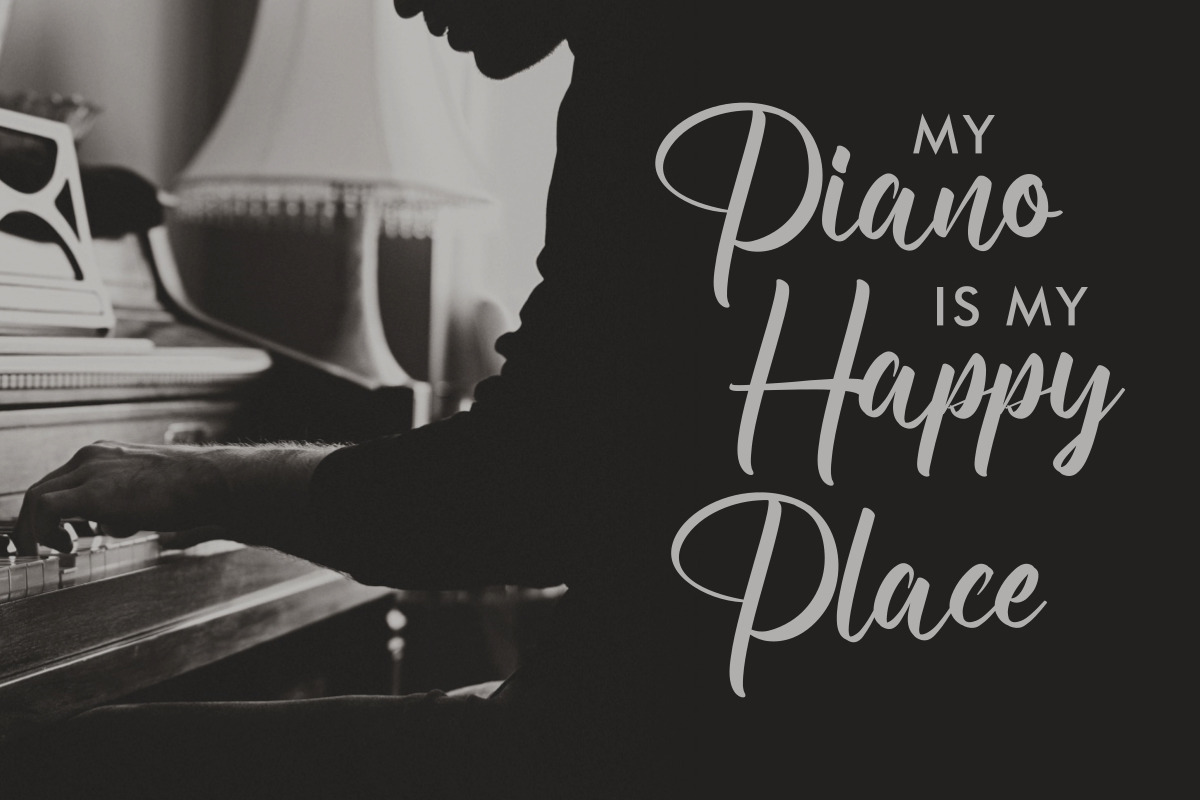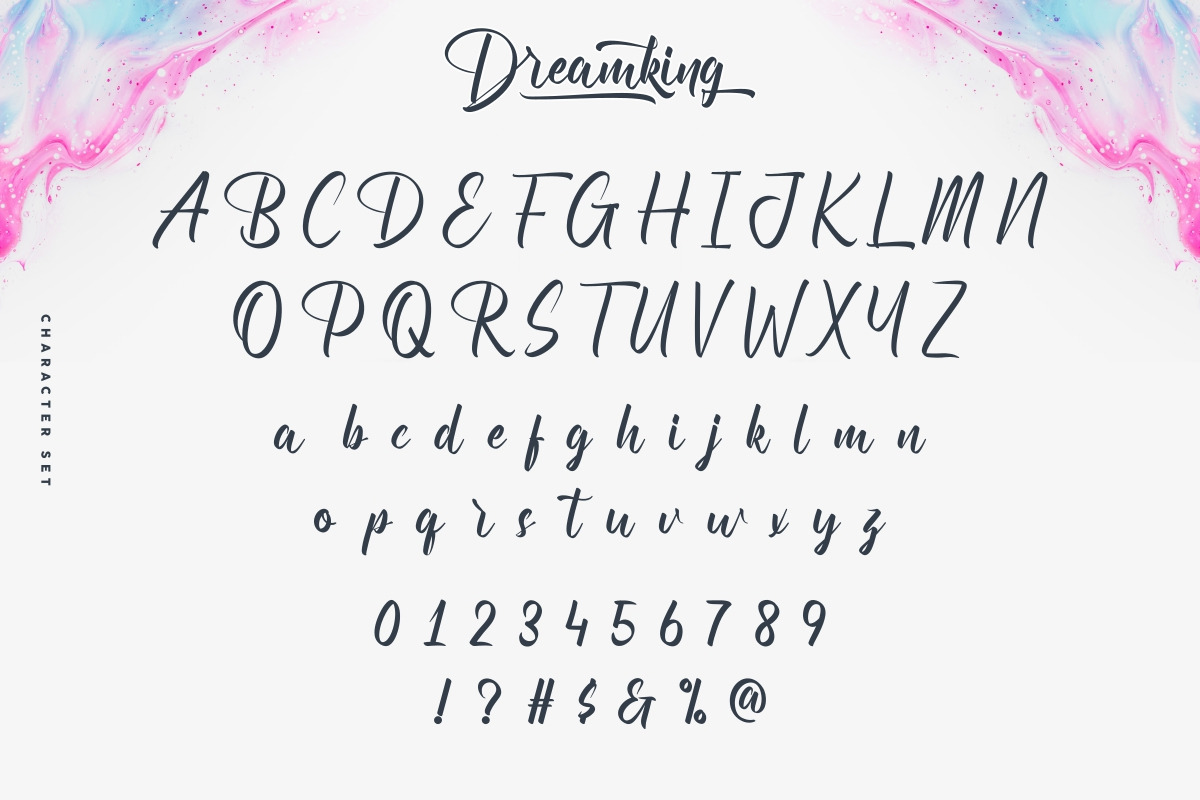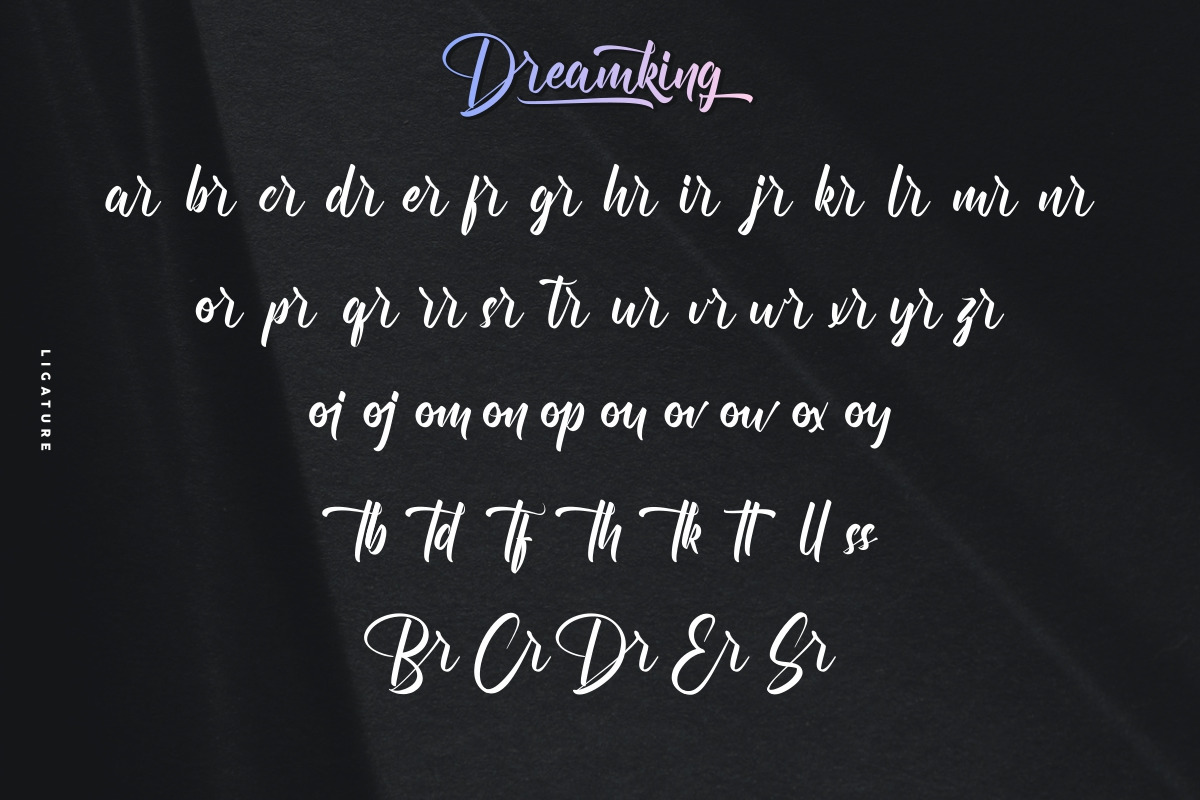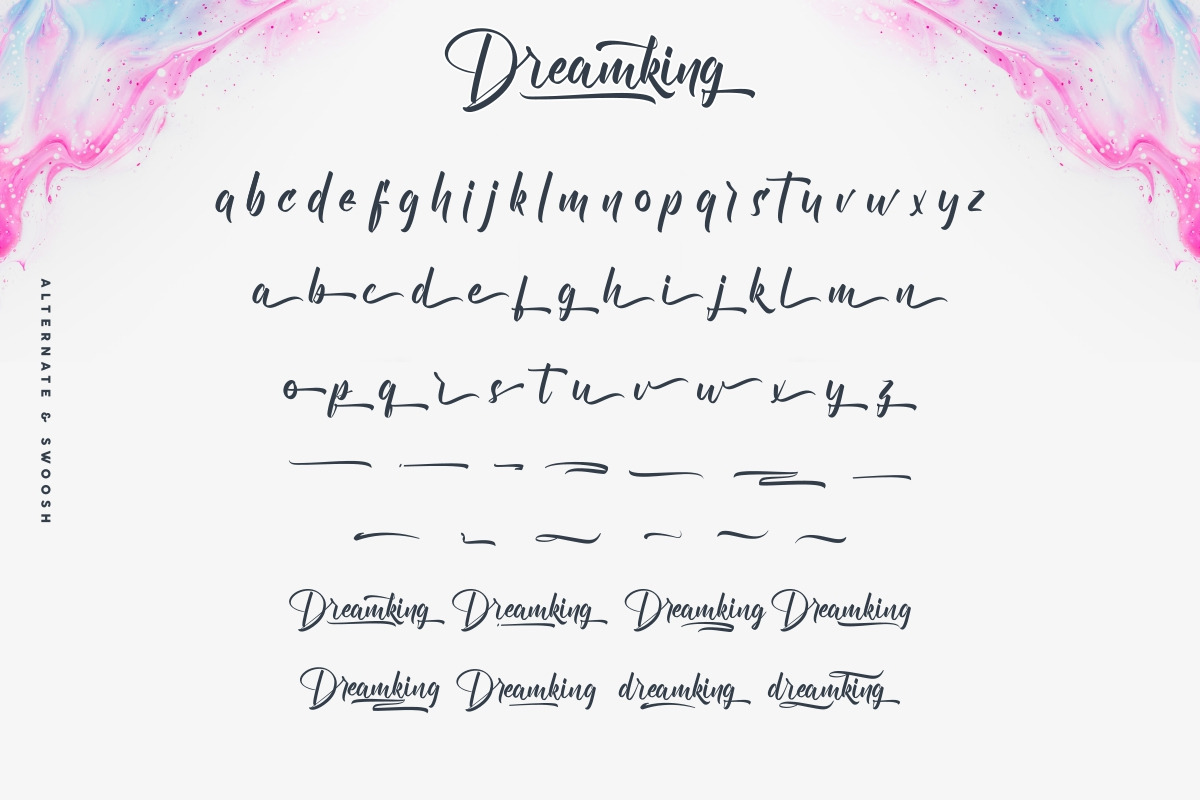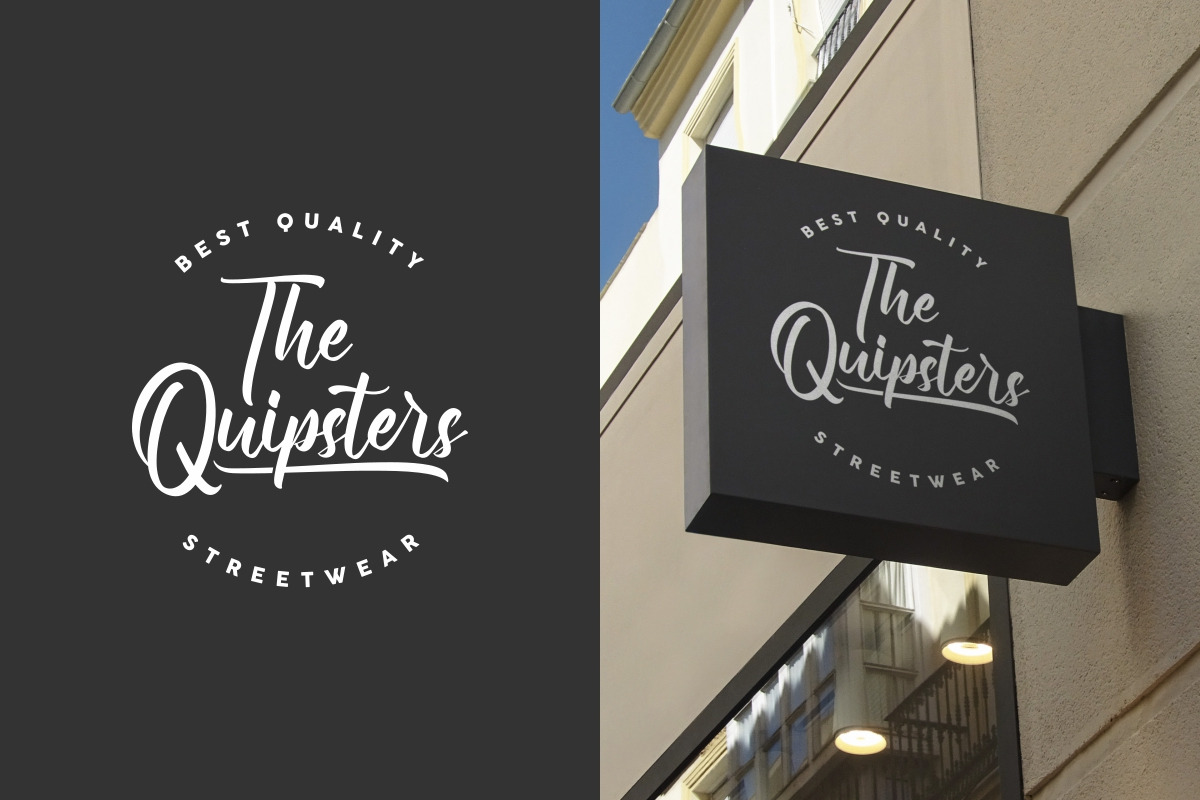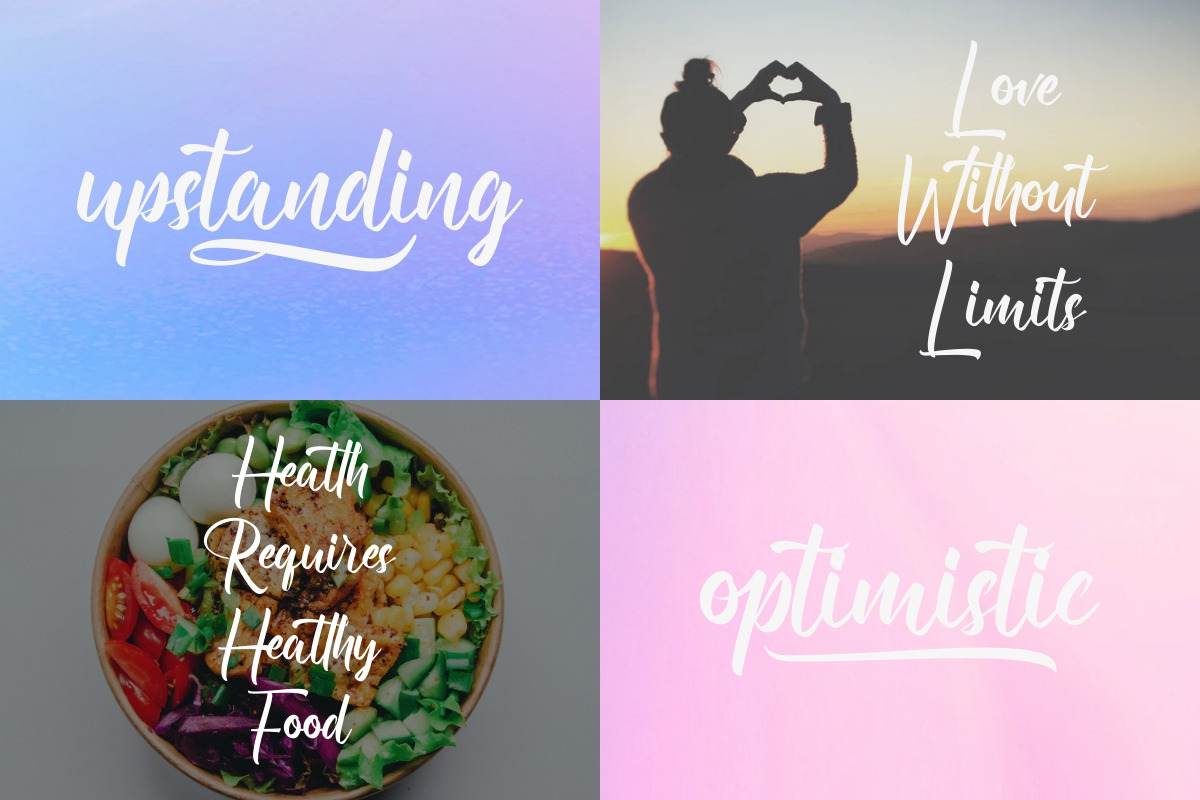
Dreamking Calligraphy Font
Dreamking is a original beautiful script font with calligraphic handwriting style. Dreamking Font great for weddings, promotion, events, branding, advertising, magazine, shopping, signage, invitation, stationery, social media posts, product packaging, product designs, label, photography, watermark or and any projects that need calligraphy handwriting style.